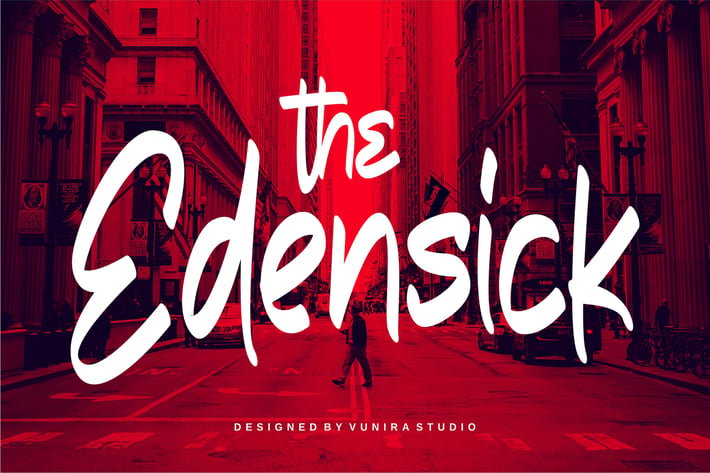
The Edensick | Handwritten Font
The Edensick | Handwritten Font with a calligraphy style, So beautiful on invitation like greeting cards, branding materials, business cards, quotes, posters, and more!